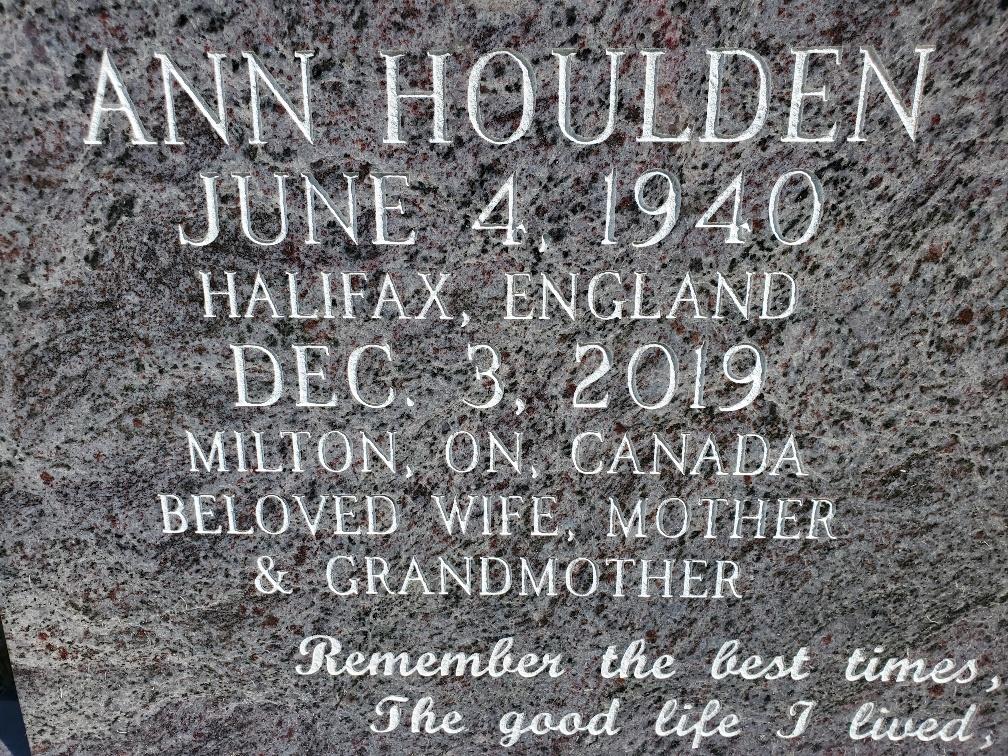
Have fonts that will pass for this, just want to know is anyone knows the exact version.  The commas are a little different as well.
Hello, I’m not positive of the specific version of Modified Roman this is, but it does appear to be very similar to the Monu-Cad “Press Modified Roman”, with a different comma and ampersand.
It’s possible this is a custom version of the font.